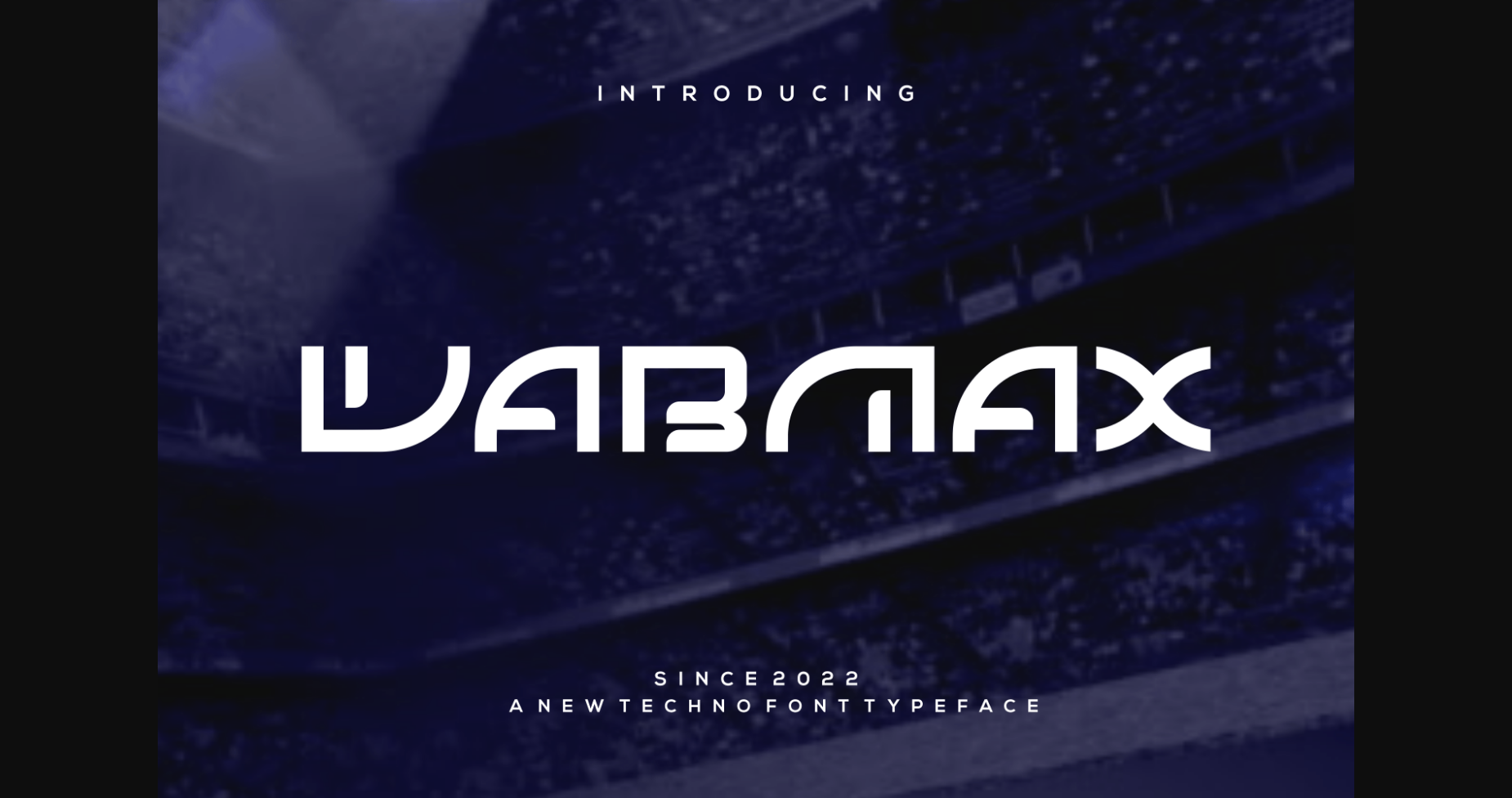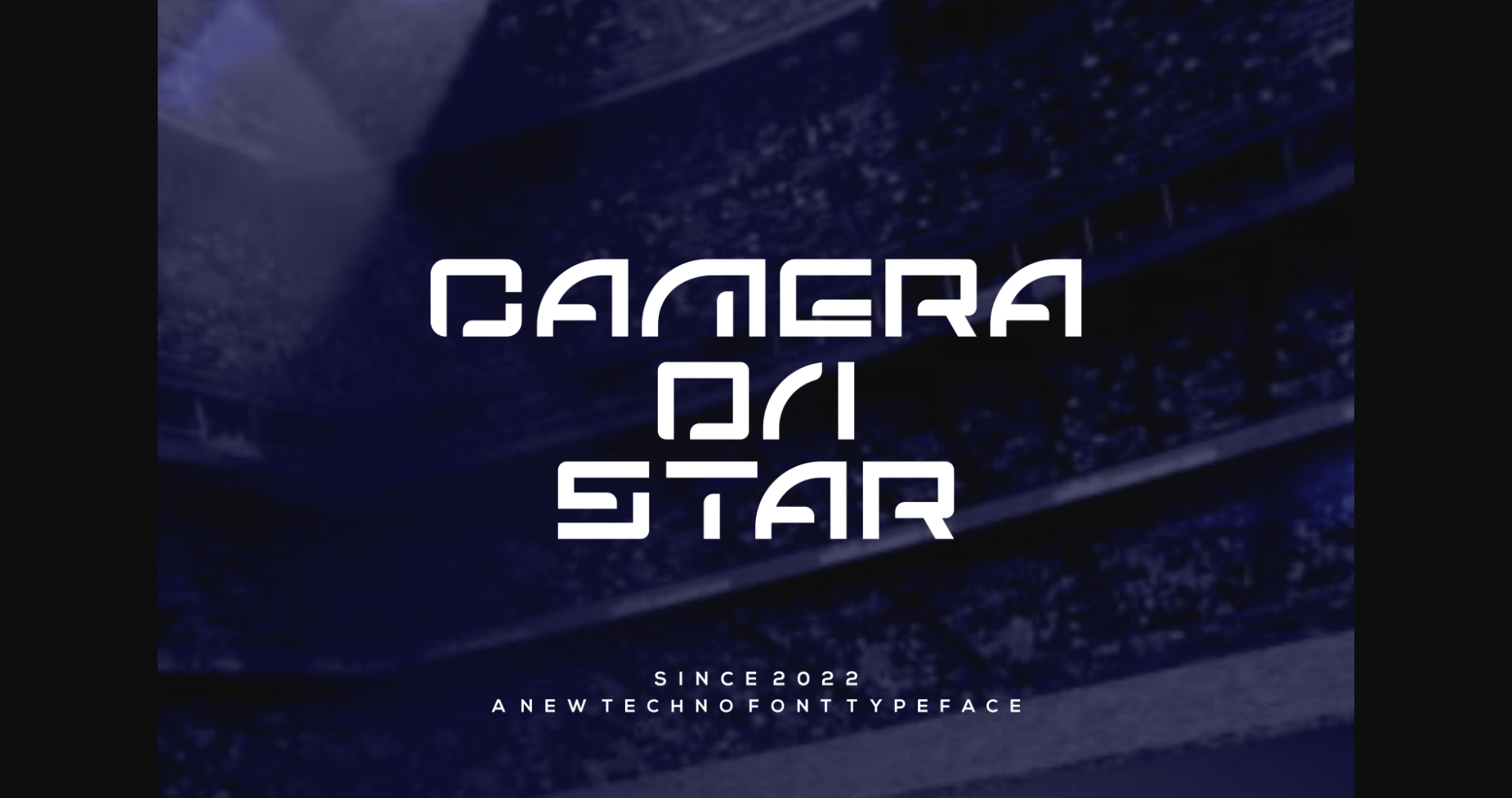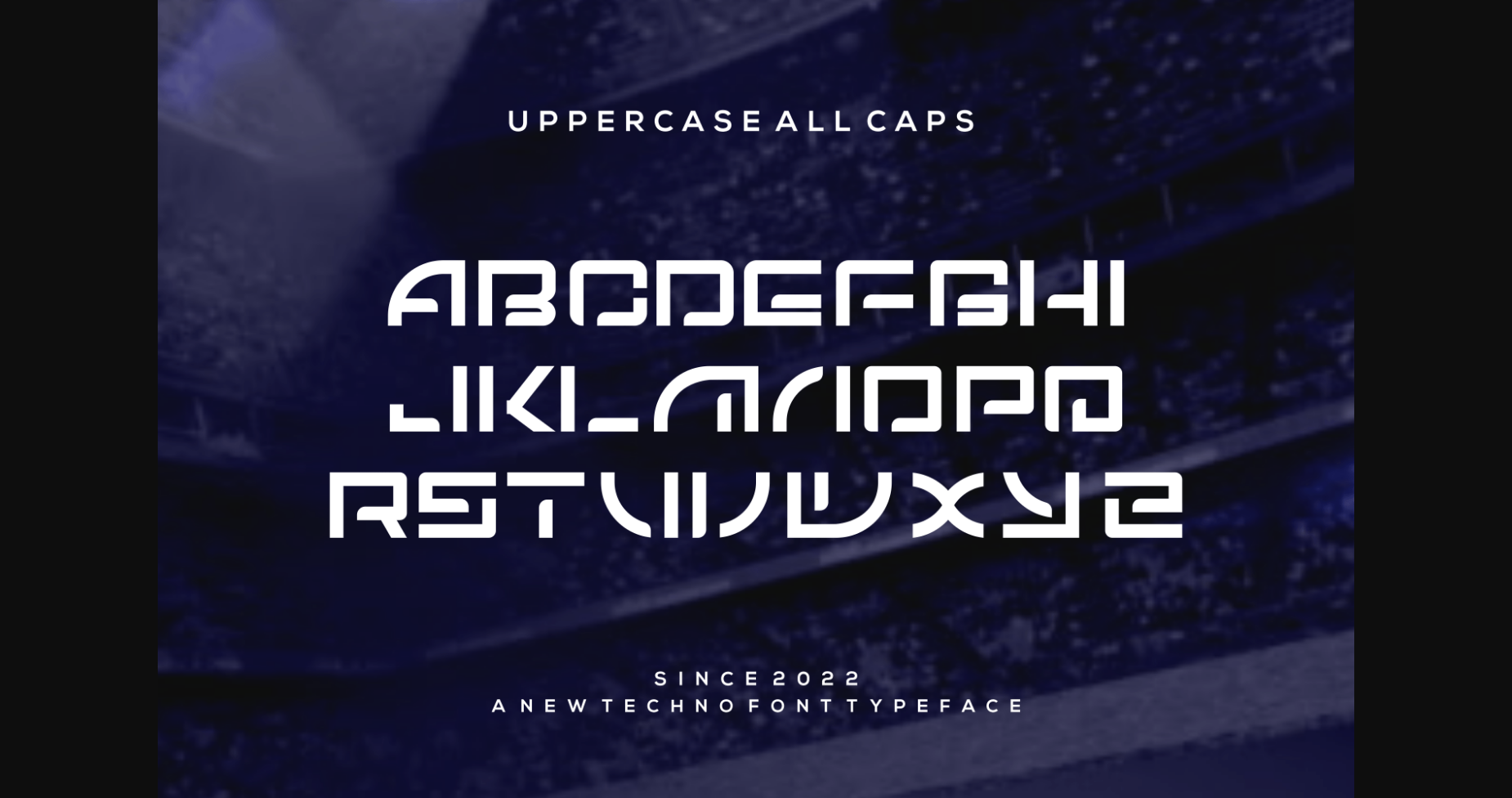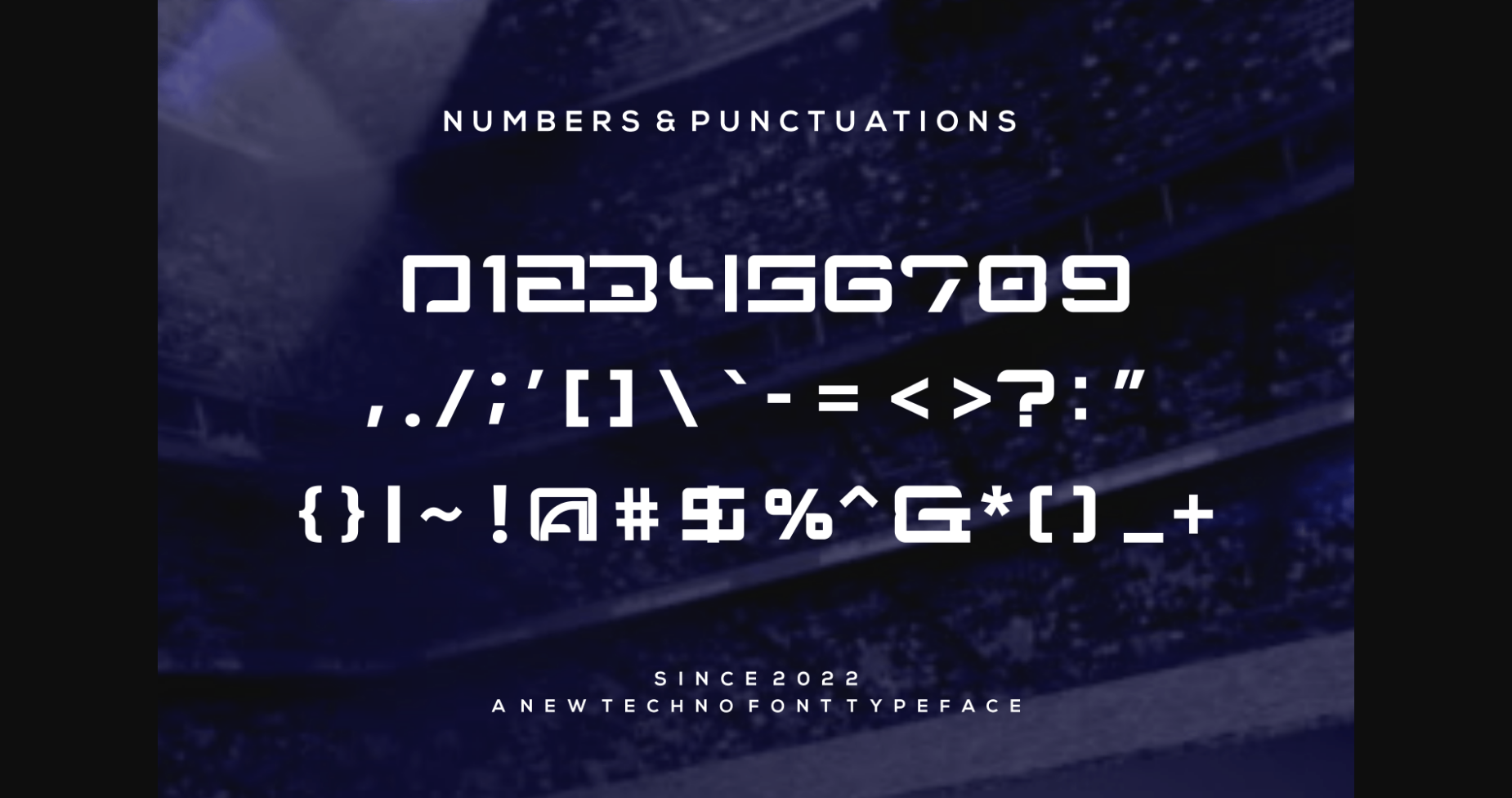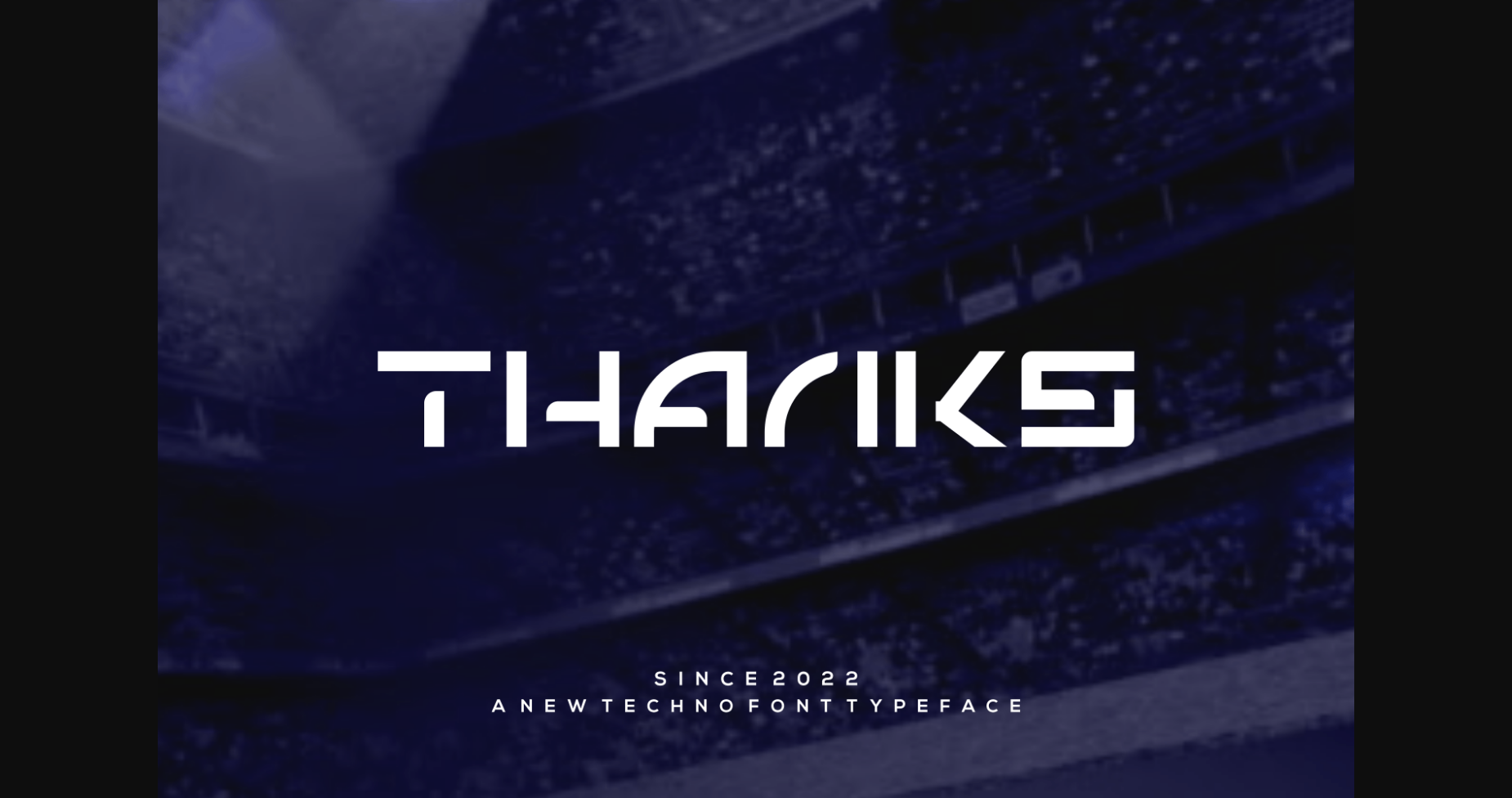
Wabmax Font
About Wabmax Font
Wabmax is a sans serif font with a charming touch of style. This typeface looks interesting and unique, perfect for anyone who wants to create a design that displays an interesting side but is still relevant for a charming modern look.